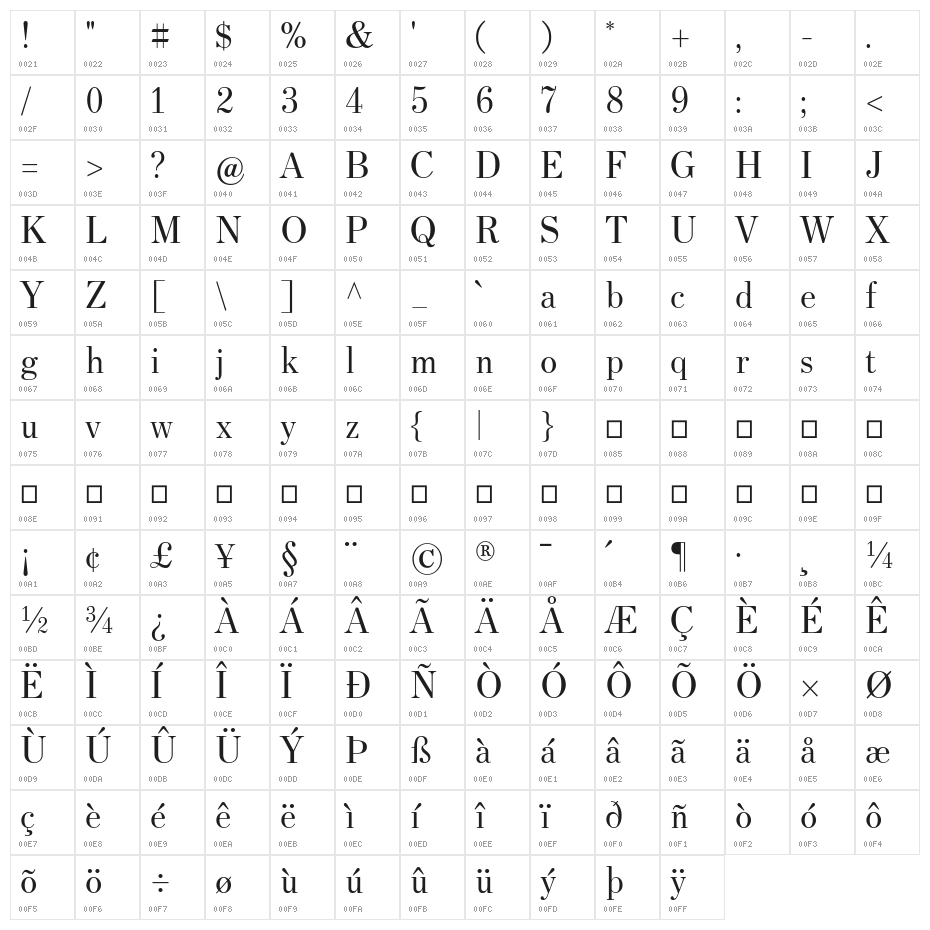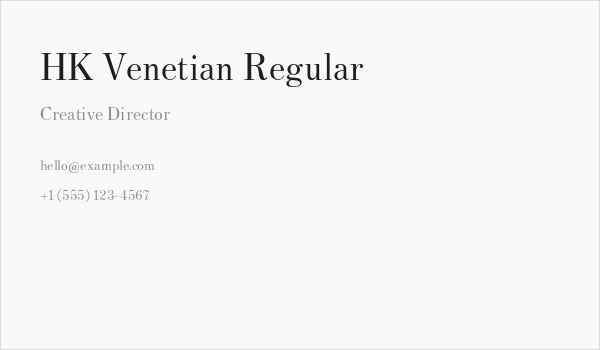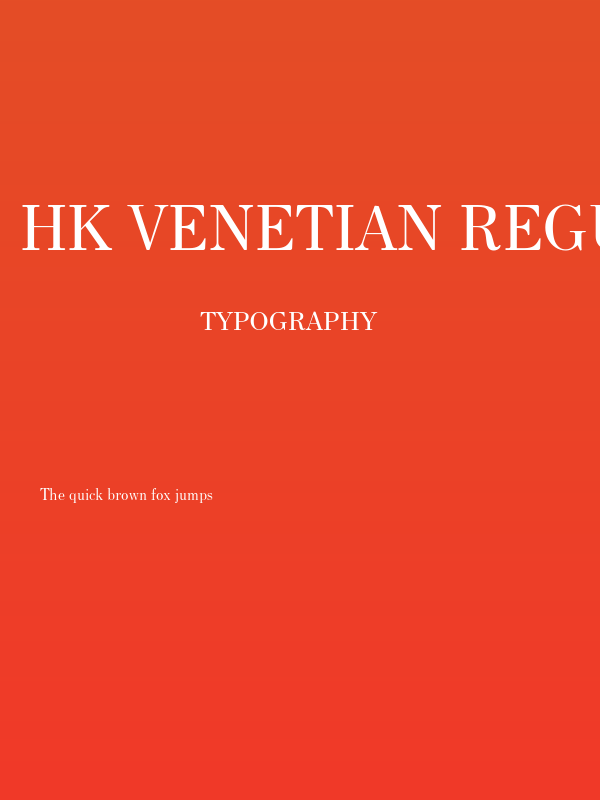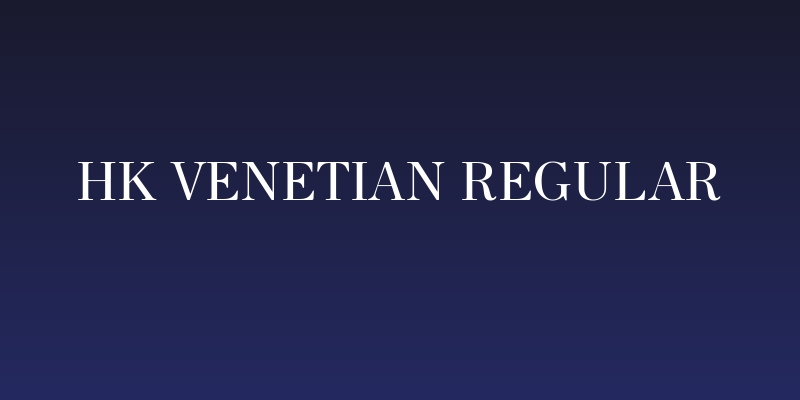
HK Venetian Regular Font
HK Venetian Regular Description
This font exhibits a classic and elegant serif style, characterized by its refined and sophisticated appearance. The serifs are pronounced, providing a traditional and formal look. The uppercase letters are well-proportioned with a slight contrast in stroke thickness, enhancing readability. The lowercase letters maintain a consistent style, with smooth curves and a balanced structure. Numerals are clear and distinct, making them suitable for both text and display purposes. The special characters are designed with the same attention to detail, ensuring a cohesive overall appearance.